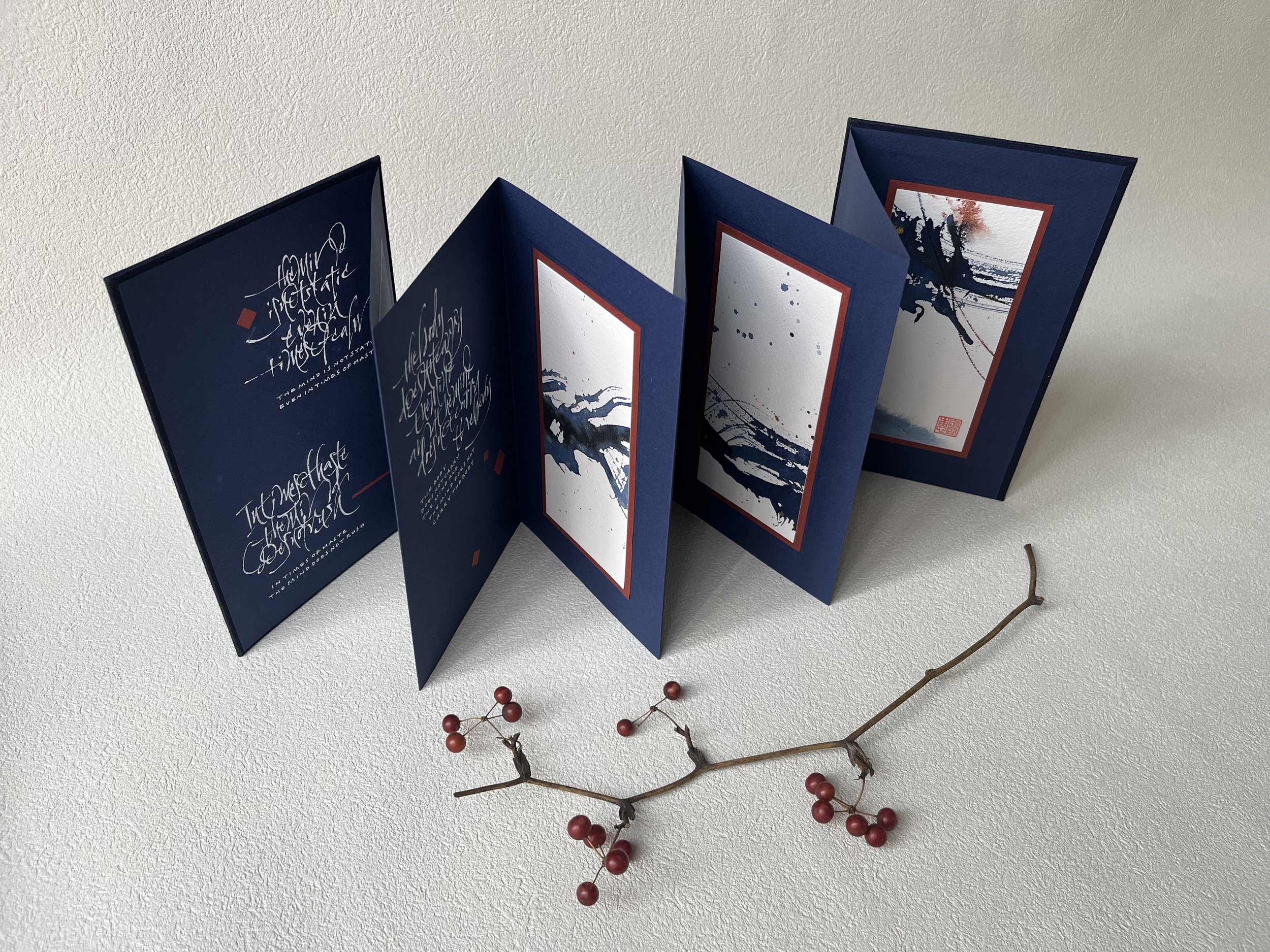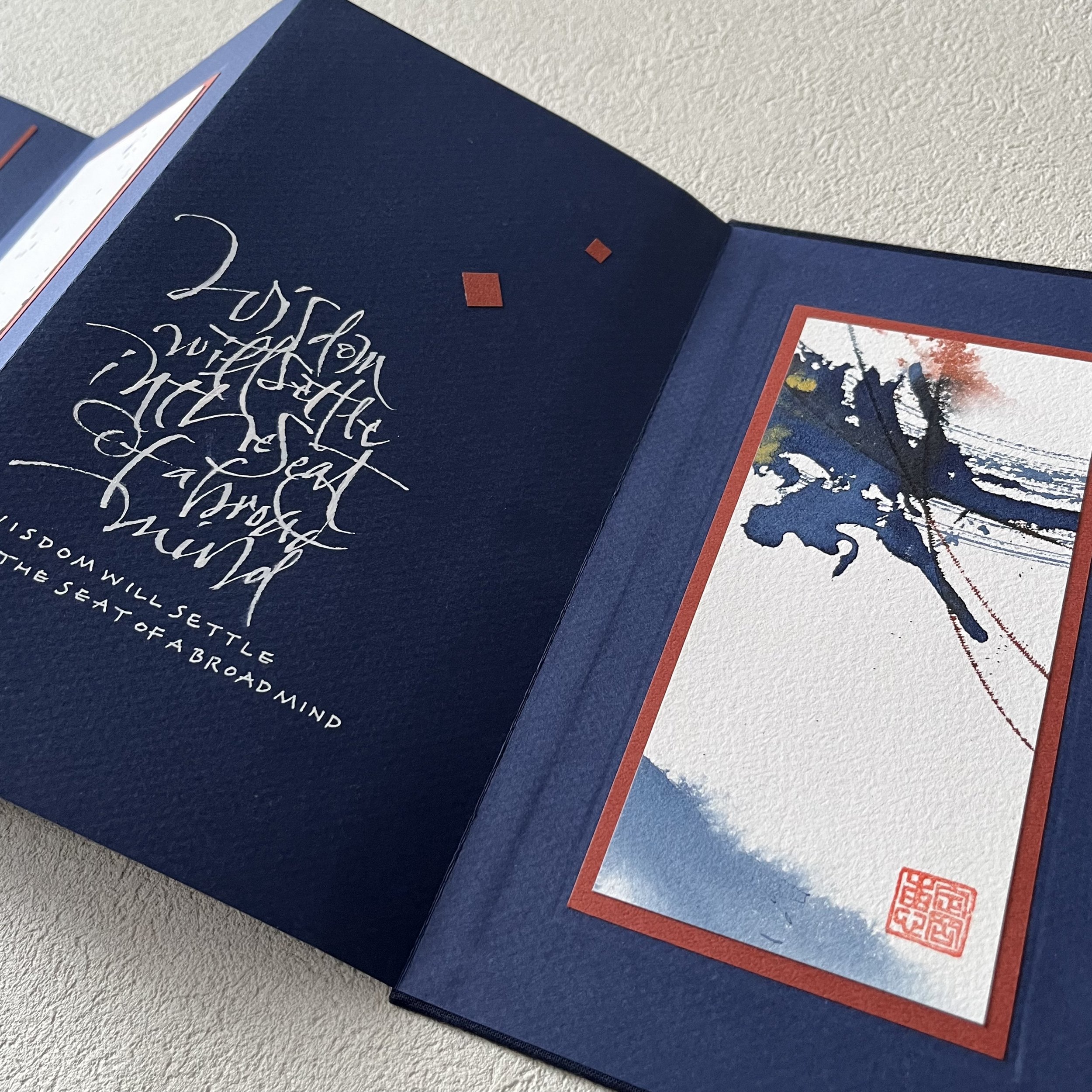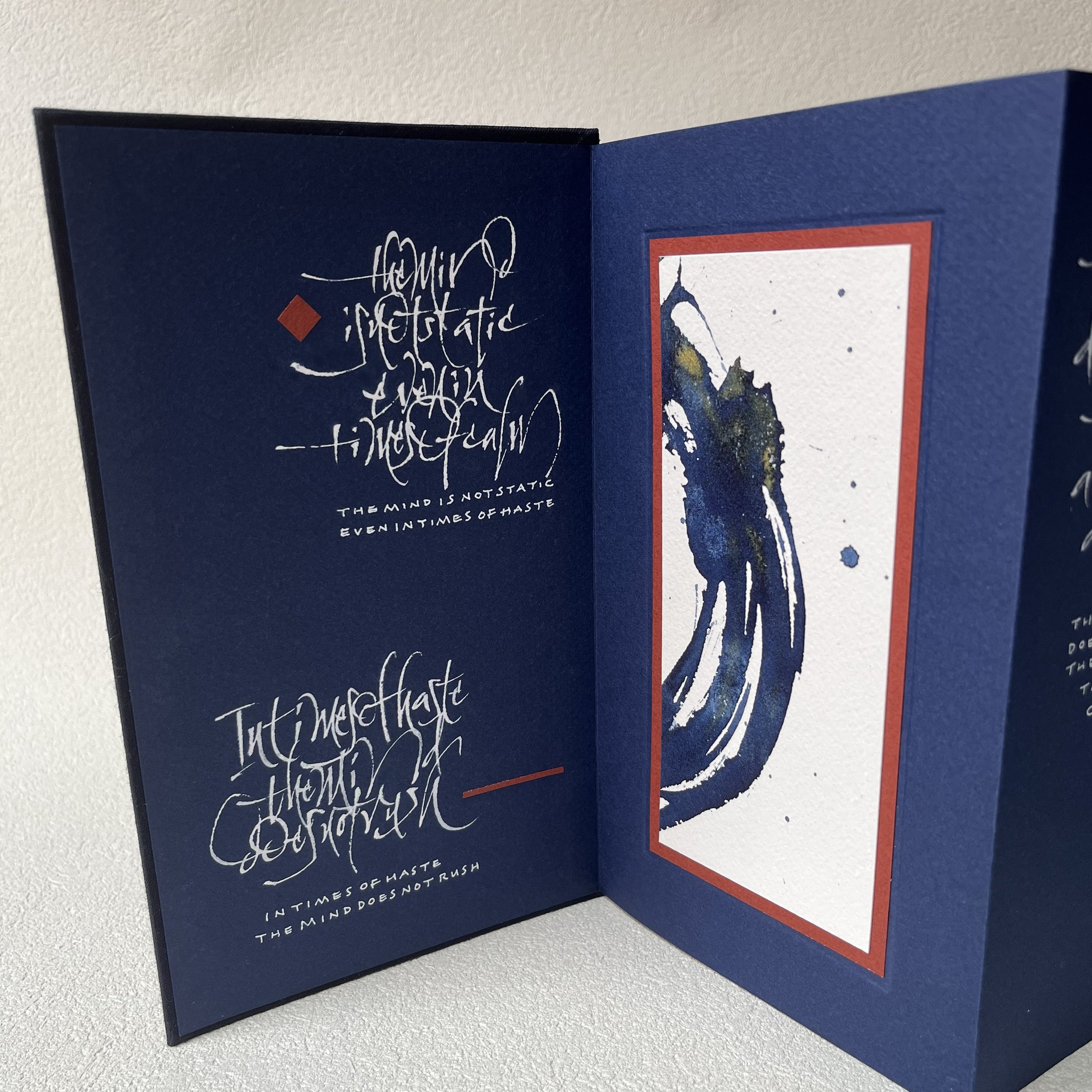
Kay Sadaoka fell in love with lettering in 2019 and began exploring different techniques and media. She eventually discovered calligraphy, and began honing her skills through online workshops and disciplined practice.
TITLE | Where Wisdom Settles - The Book of Five Rings
An accordion book with a quote from the Book of Five Rings written in 1645 by Musashi Miyamoto, a renowned swordsman and philosopher. In this work, I tried to express the intensity of Kendo practice through mark-making and expressive writing. Indigo dye was used as it is the colour for dyeing Kendo armour and garments.
MEDIUM | Sumi ink, indigo dye, watercolours, bleedproof white